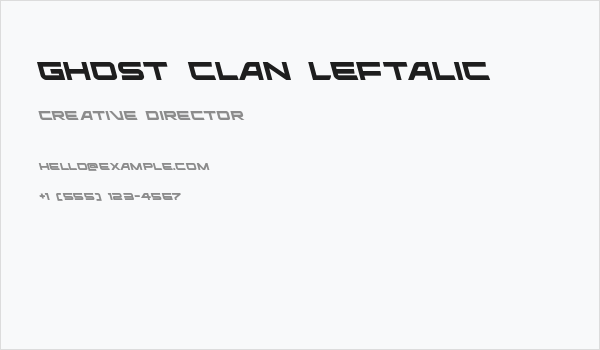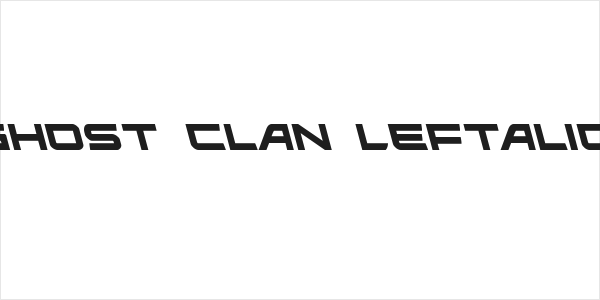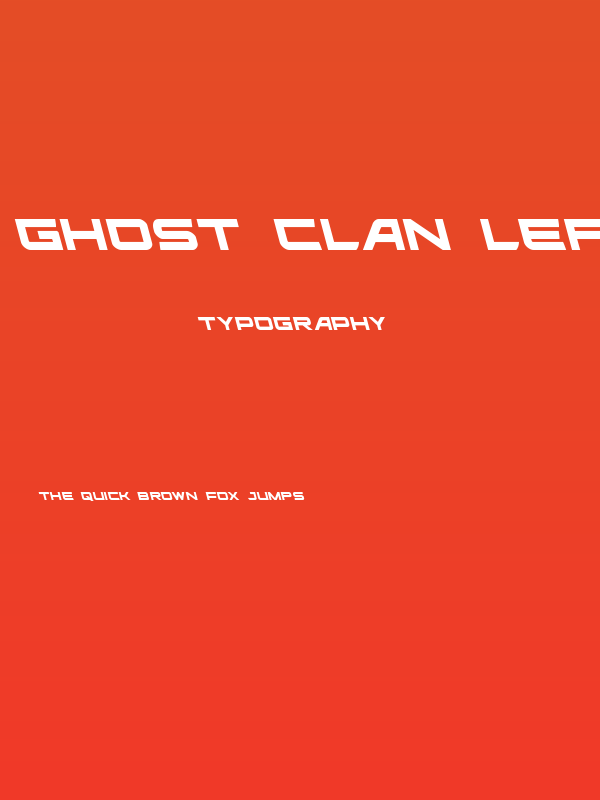
Ghost Clan Leftalic Font
Ghost Clan Leftalic Description
This font features a bold, angular design with a futuristic and dynamic appearance. The characters are slightly slanted, giving a sense of motion and speed. The strokes are thick and consistent, providing a strong visual impact. The geometric shapes and sharp edges contribute to its modern and edgy style. The font maintains uniformity across uppercase, lowercase, and numeric characters, ensuring readability while adding a unique flair. Special characters are designed with the same boldness and angularity, making them stand out.
Proposed ProjectsIdeal for sci-fi themed projects, video game titles, tech branding, and sports logos.